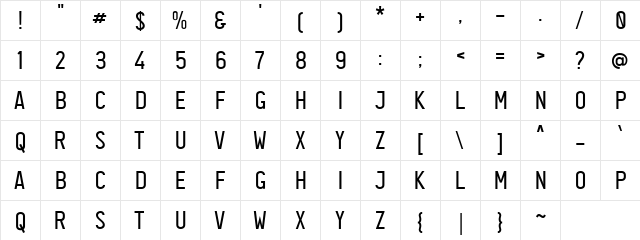
Plat Nomor Regular
| Designer | Wahyu Eka Prasetya |
Design Context for Plat Nomor Typeface
Plat Nomor takes a measured approach to typography — its balanced proportions and neutral character make it a reliable workhorse for both digital and print work.